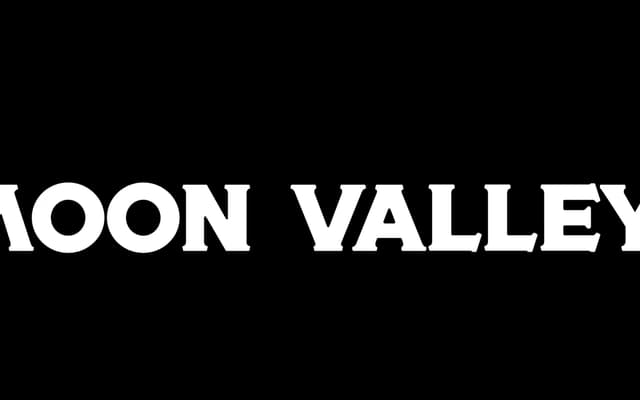
Moon Valley
A thick, hand-lettered serif display face with a vintage woodblock character, sold as a single style.
Drawn with hand-lettered warmth and a woodblock weight, this display serif carries the kind of rough, deliberate quality associated with antique print ephemera. Named after a specific place meaningful to the studio, it reads as a personal project rather than a commissioned commission. At a single style and a low price point, it suits headlines, labels and short-form display work where a period feel is wanted.
Described explicitly as a thick, hand-lettered serif display type with vintage and woodblock character; the ornamental, expressive quality places it firmly in the display category.